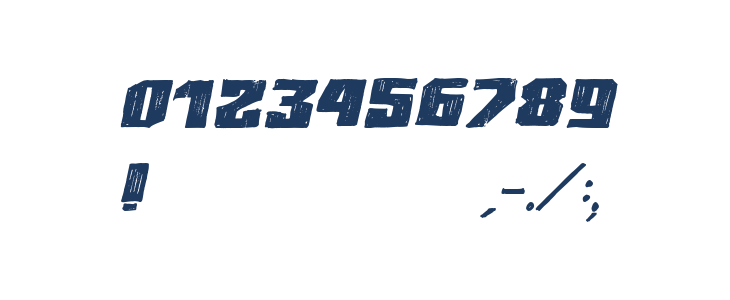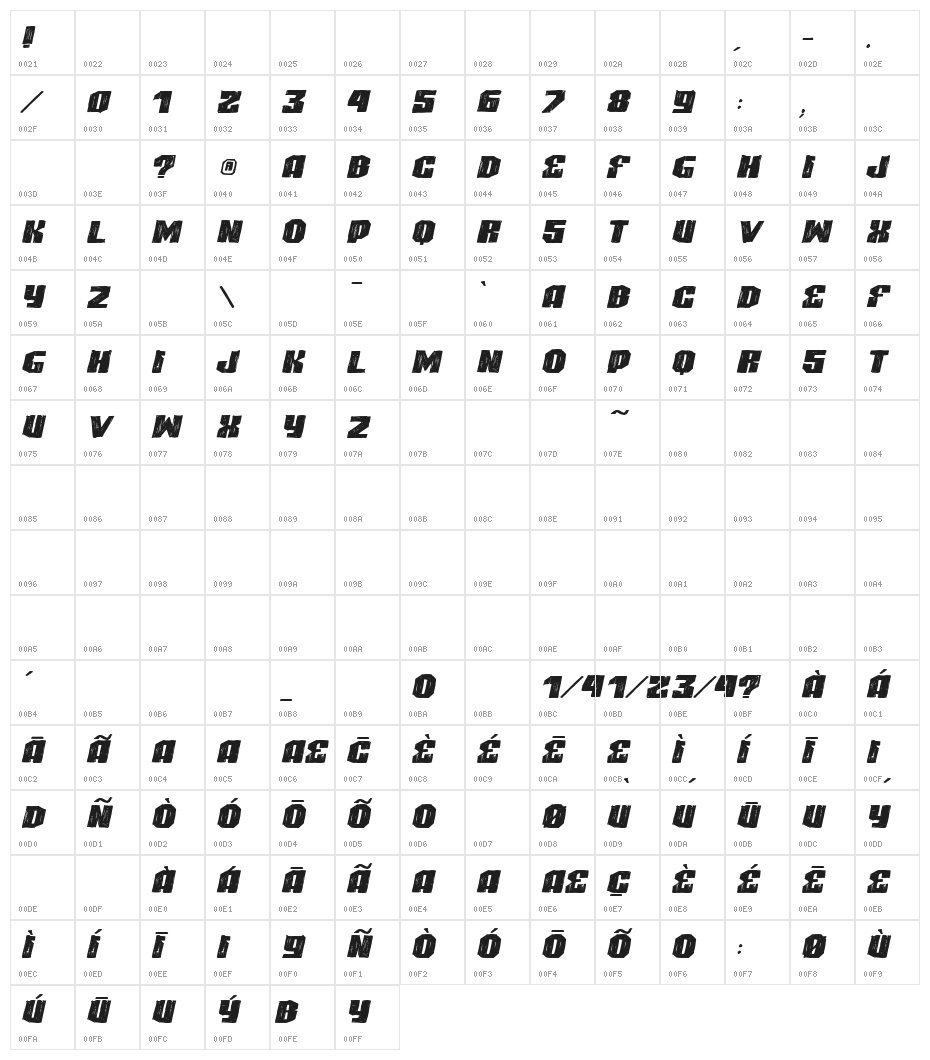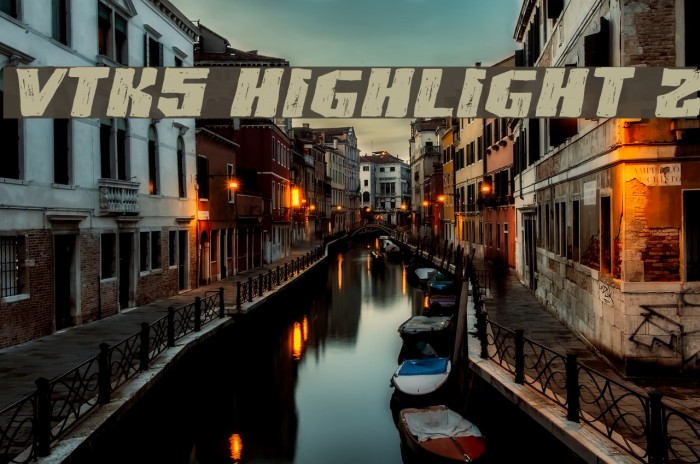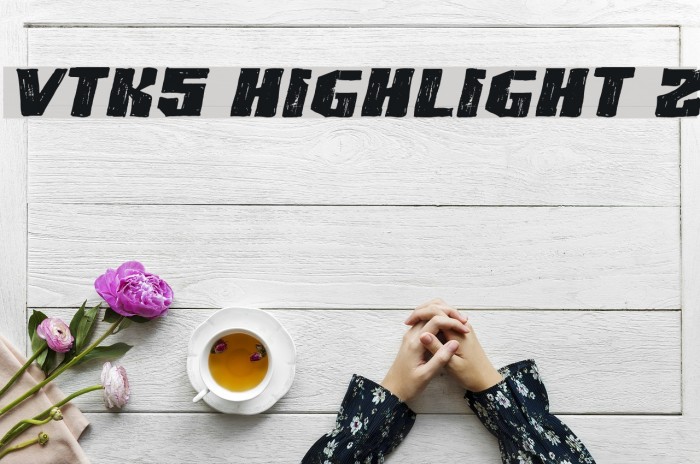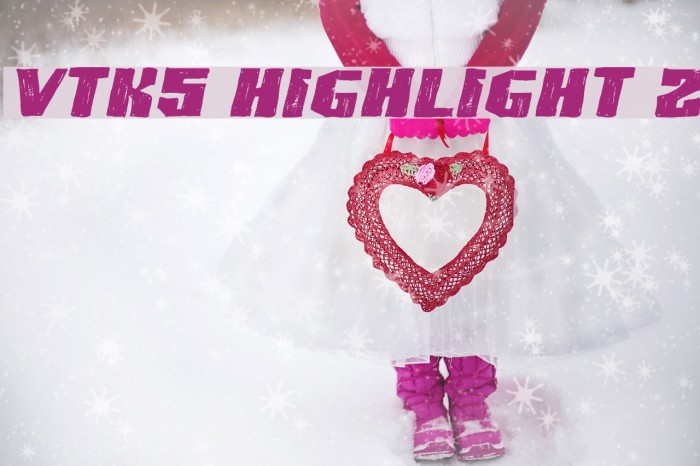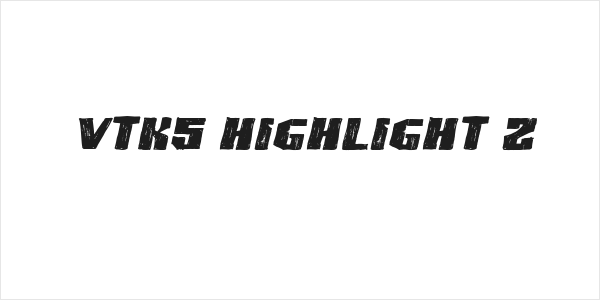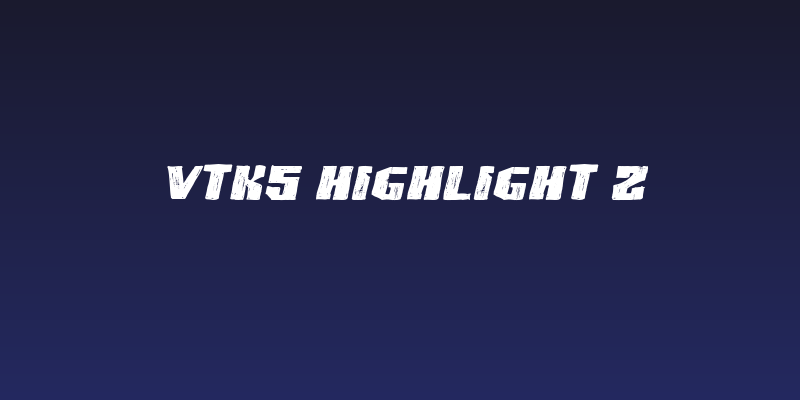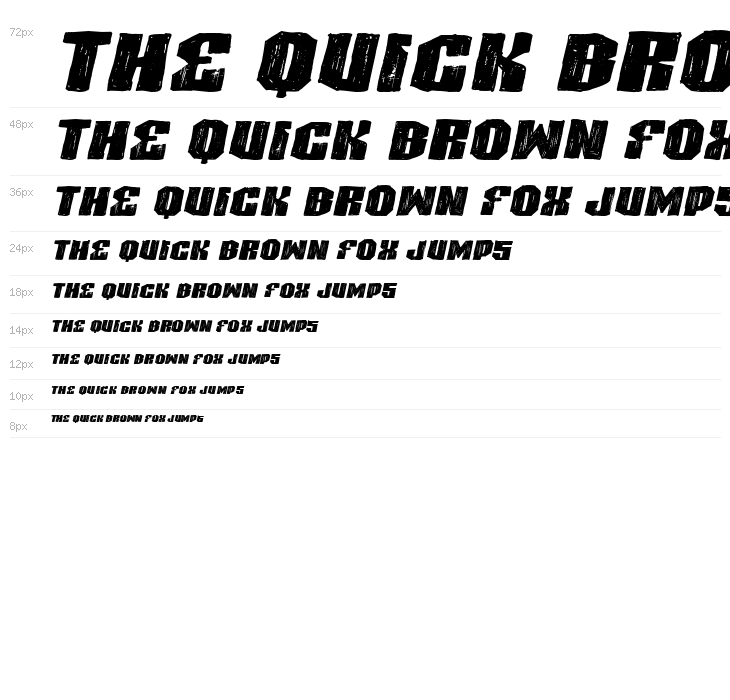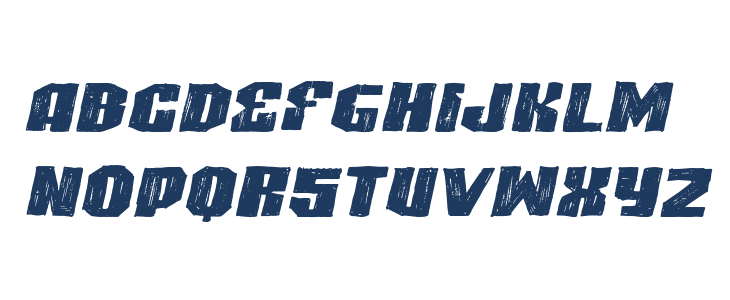
VTKS HIGHLIGHT 2 Font
VTKS HIGHLIGHT 2 Description
This font features a bold, distressed style with a rugged, textured appearance. Each character is designed with a rough, uneven surface, giving it a worn, grunge-like effect. The uppercase and lowercase letters maintain a consistent boldness, while the numbers and special characters follow the same distressed theme. The overall look is dynamic and impactful, making it suitable for projects that require a strong, edgy aesthetic. The font's unique style is ideal for creating eye-catching headlines, posters, and graphic designs that need a touch of raw energy.
| Overall Style | Grunge, Edgy, Distressed |
| Use Case | Headlines, Posters, Graphic Design |
| Proposed Projects | Ideal for posters, album covers, branding, and any design needing a grunge or edgy look. |